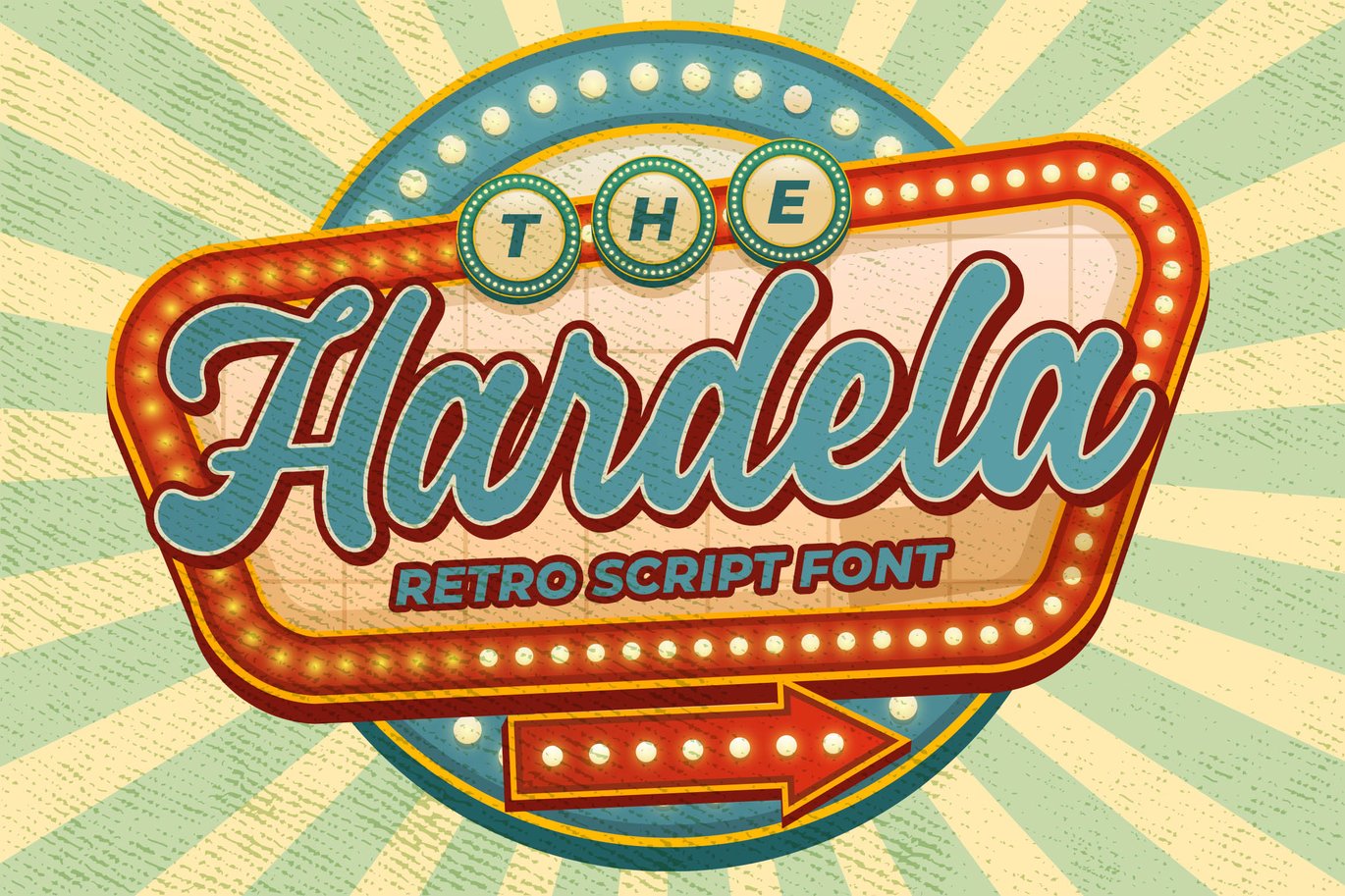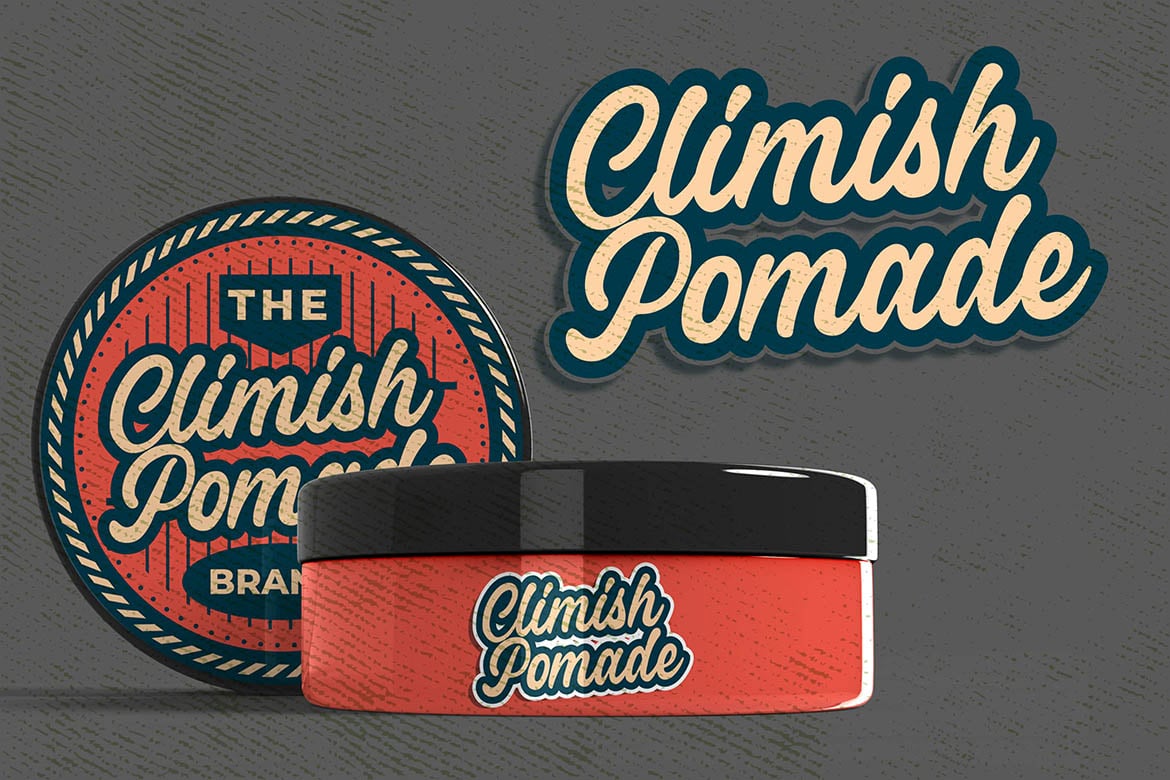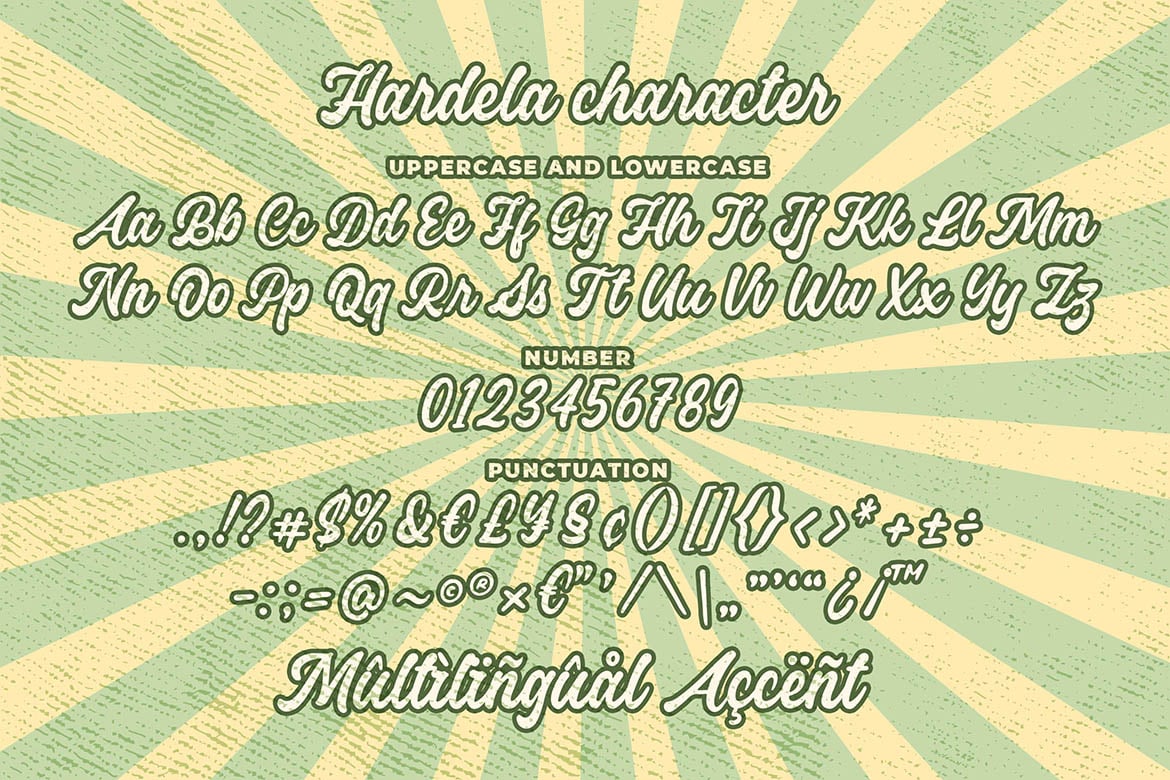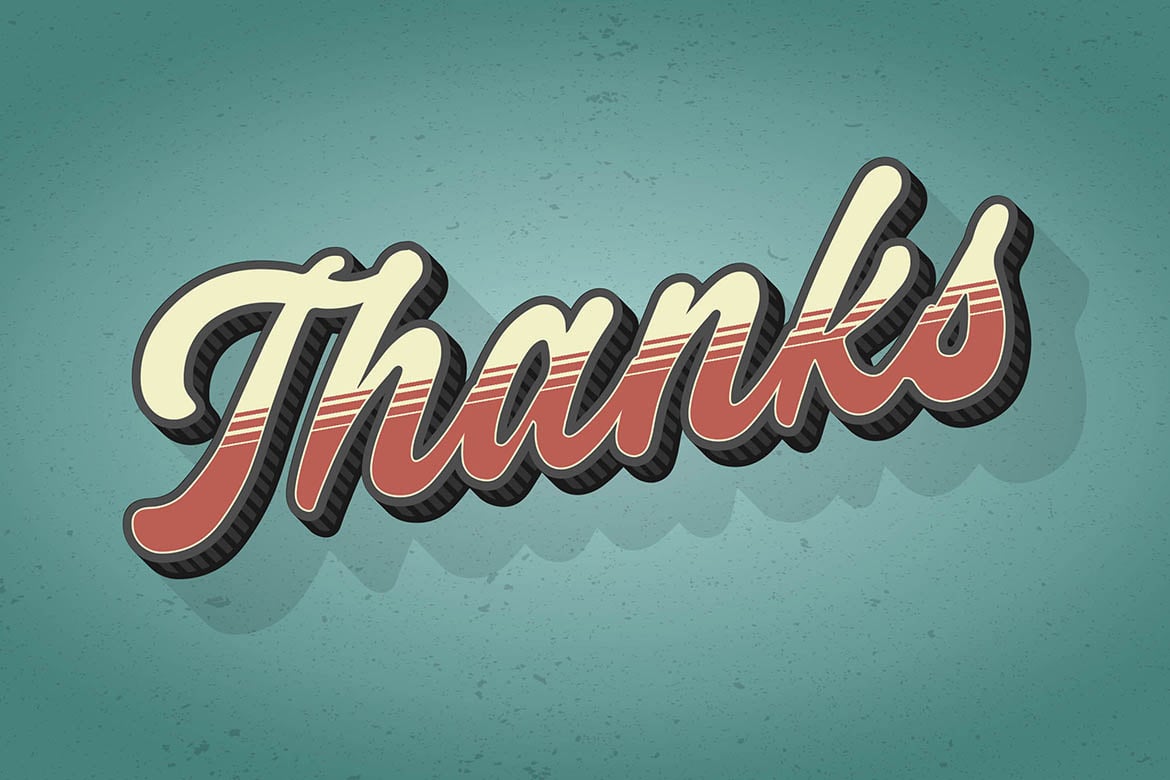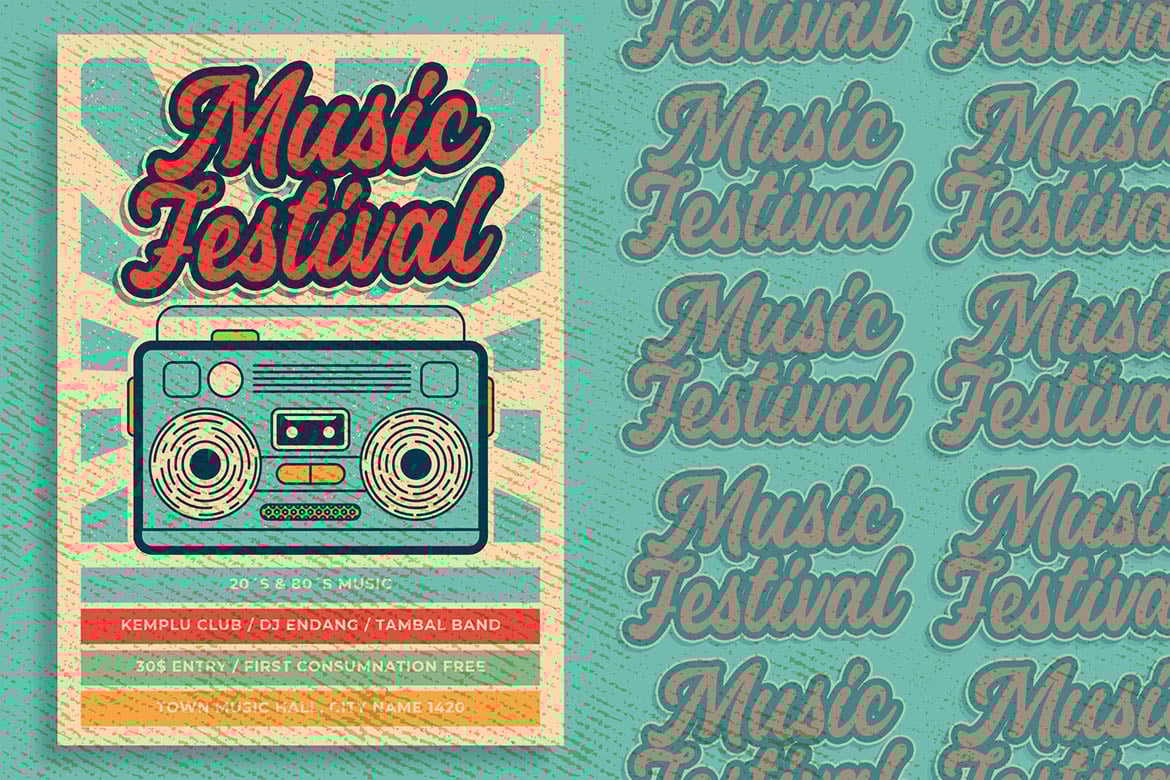
Hardela – Retro Script Font
Introducing a new Font called Hardela Retro Script Font. Hardela inspired from retro style good for signature, logotype, poster, social media, book cover, tshirt design, packaging and any more.
MULTILINGUAL ACCENT :
ØÆøæ¢ÐŒœÁĂÂÀÄĄÅÃǼĆČÇĈĊĎÉĔĚÊËĖÈĘĞĜĢĠĤÍĬÎÏİÌĮĨĴĶĹĽĻĿŃŇŅÑÓŎÔÖÒŐǾÕŔŘŖŚŠŞŜȘŤŢÚŬÛÜÙŰŲŮŨẂŴẄẀÝŶŸỲŹŽŻáăâäàąåãǽćčçĉċďéĕěêëėèęğĝģġĥíîïìįĩĵķĺľļŀńʼnňņñóŏôöòőǿõŕřŗśšşŝșťţŭûüűùųůũẃŵẅẁýŷÿỳźžż